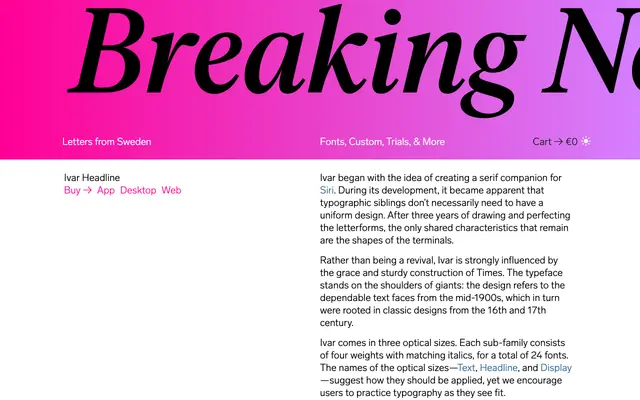
Ivar Headline
Letters from Sweden · Göran Söderström · 2017
A Times-influenced transitional serif by Göran Söderström, offered as one of four optical sizes within a broad editorial family.
Designed by Göran Söderström and released in 2017, Ivar draws on the construction and grace of Times without functioning as a strict revival, instead referencing the dependable text faces of the mid-20th century and their classical antecedents. The Headline optical size sits between the Text and Display cuts, offering four weights from Regular to Bold with matching italics. The wider family extends to Ivar Fine, a high-contrast variant added in 2020, and further into Display Condensed, Nostalgi and Soft.
Ivar Headline is explicitly influenced by the construction of Times and the dependable text serifs of the mid-20th century, which trace back to 16th and 17th century classical designs, placing it firmly in the transitional serif tradition.